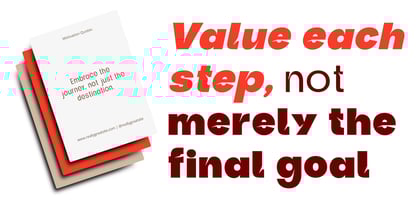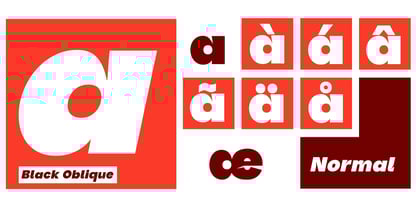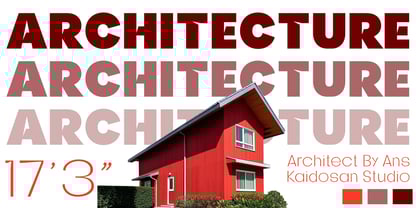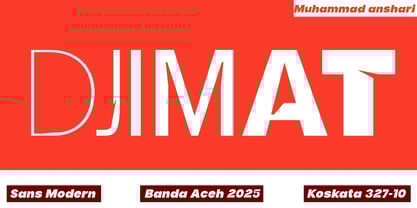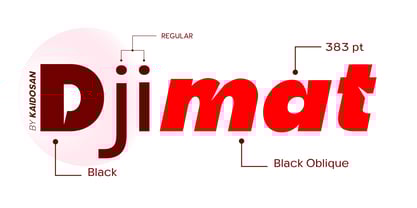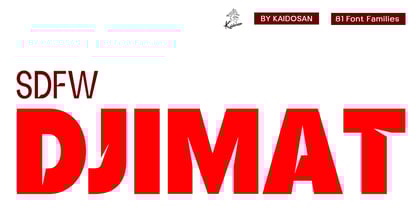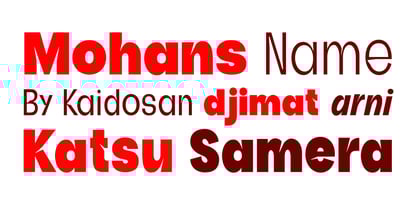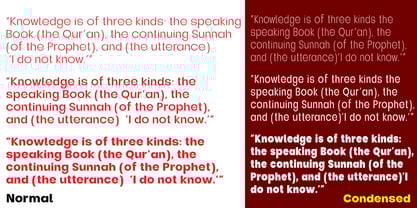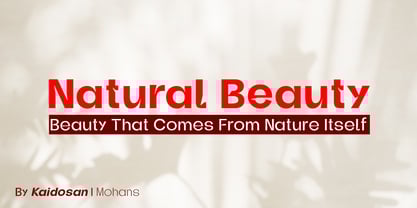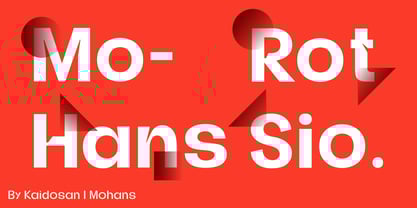
Djimat
by Kaidosan
The Djimat Font Family was designed by Muhammad Ansari and published by Kaidosan. Djimat contains 81 styles and family package options.
Djimat is an extraordinarily comprehensive sans-serif font family. Comprising 81 style variations, Djimat offers a rich typographic solution for your diverse design needs. This collection includes classic and versatile normal styles, dynamic oblique variants that provide visual emphasis, as well as efficient condensed options for limited space usage without sacrificing readability. With this extensive range, Djimat allows you to create clear and engaging typographic hierarchies in any project, from modern web designs and informative print materials to strong and consistent brand identities. Each style within the Djimat family is meticulously designed to ensure visual harmony and high aesthetic quality